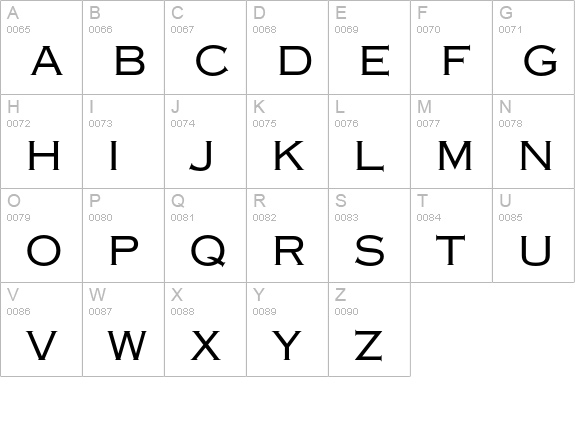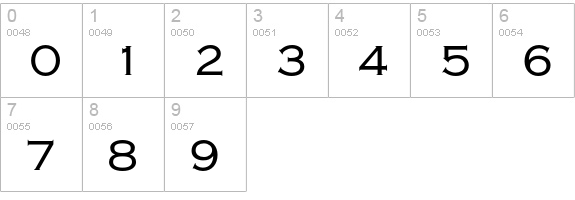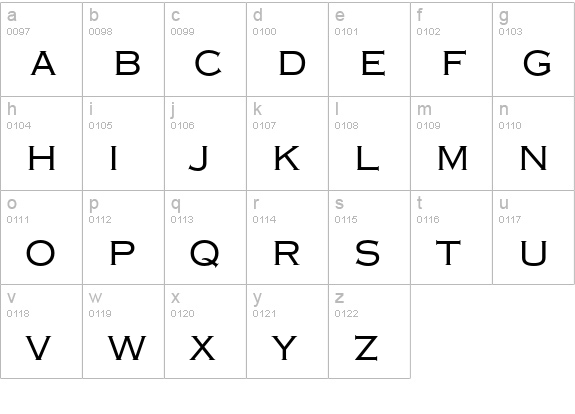
Copperplate Gothic Thirty-Two AB Font Details
Copperplate Gothic Thirty-Two AB font is a timeless and elegant typeface that exudes sophistication and class. With its clean lines and sharp angles, this font is perfect for adding a touch of refinement to any design project. The bold and commanding presence of Copperplate Gothic Thirty-Two AB makes it a popular choice for headlines, titles, and logos. What sets Copperplate Gothic Thirty-Two AB font apart is its versatility and readability across various mediums. Whether used in print or digital formats, this font retains its distinctive charm and legibility, making it a favorite among designers and typographers. The best part? Copperplate Gothic Thirty-Two AB font is available for free download at FontsMarket.com. Now you can easily access this premium font and elevate your designs without breaking the bank. Don't miss out on the opportunity to enhance your projects with the timeless appeal of Copperplate Gothic Thirty-Two AB font. Download it today and see the difference it can make in your creative endeavors.